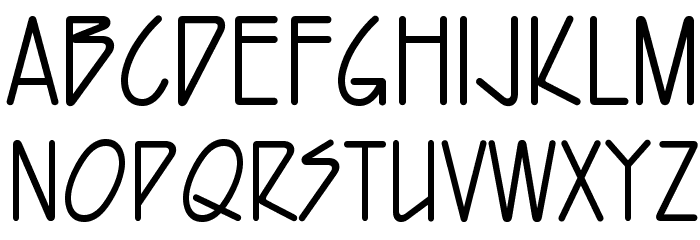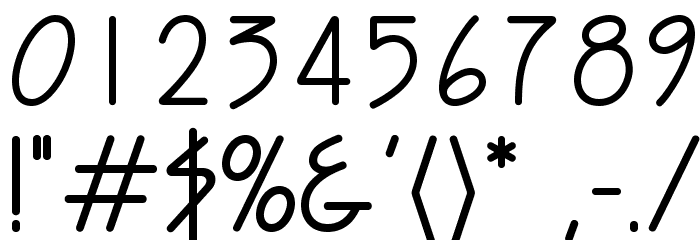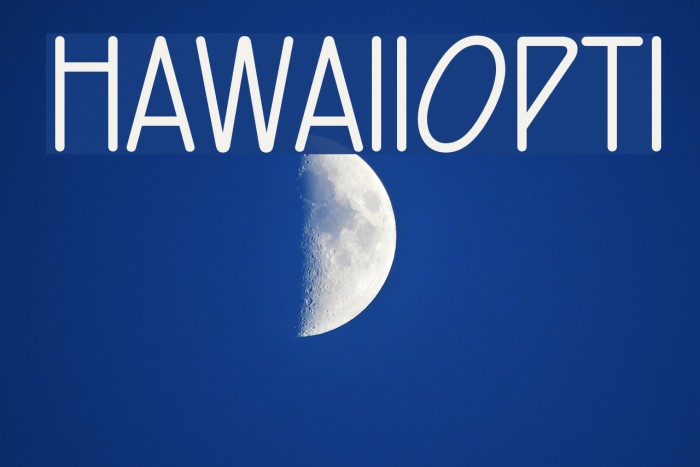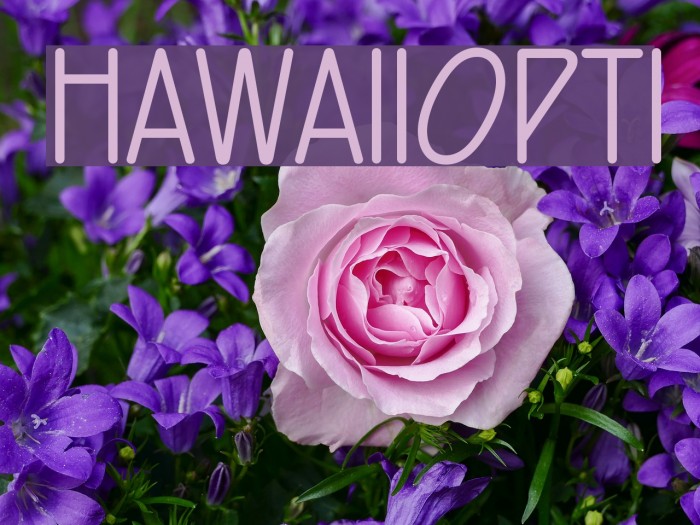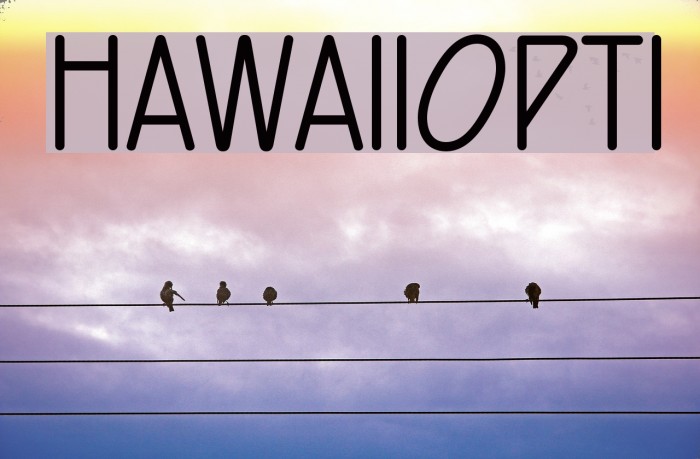
HawaiiOpti Font
This font features a playful and modern design with a handwritten style. The characters are tall and narrow, with a consistent stroke width that gives it a clean and uniform appearance. The uppercase and lowercase letters maintain a cohesive look, with slight variations in curvature that add a touch of whimsy. The numbers and special characters are designed to match the overall aesthetic, ensuring a harmonious look across all text elements. This font is versatile and can be used to convey a friendly and approachable tone.
A playful, modern handwritten font with consistent stroke width.
- Proposed Projects: Ideal for greeting cards, children's books, playful branding, and casual invitations.
- Use Case: Logos, Headlines, Casual Text